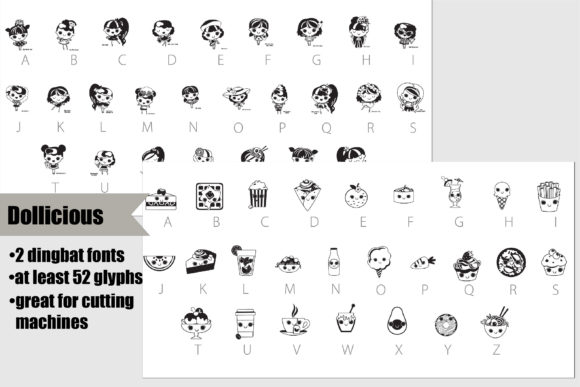
In a world of monotonous fonts, where letters march in sterile lines, there exists a collection that bursts with vibrance and charm - the Dollicious Font Family. This exquisite dingbats bundle, crafted by the ingenious minds at Illustration Ink, is not just a collection of fonts; it's a gateway to a world of culinary delight, a celebration of Asian cuisine in all its delectable glory.
Picture this: A font where adorable dolls, with their rosy cheeks and sparkling eyes, carry their favorite Asian delicacies, from steaming bowls of ramen to delicate sushi rolls. Imagine another font where the very essence of these culinary delights dances across the page, each glyph a tantalizing morsel, ready to be savored. This is the magic of the Dollicious Font Family.
These fonts aren't mere tools for communication; they're an expression of joy, a celebration of culture, and an invitation to indulge in the vibrant world of Asian cuisine. Whether you're a seasoned designer seeking to add a touch of whimsy to your projects or a casual user looking to infuse your digital creations with personality, the Dollicious Font Family is your culinary companion, ready to add a dash of flavor to your every endeavor.
With multiple glyphs in each font, the creative possibilities are endless. Unleash your imagination and let the Dollicious fonts guide you through a culinary adventure. Create eye-catching social media posts that tantalize taste buds, design menus that transport diners to the heart of Asia, or craft invitations that promise a feast for the eyes and the palate.
But the Dollicious Font Family isn't just about aesthetics; it's also a practical choice for crafters and makers. Its perfect compatibility with vinyl and cutting machines makes it a breeze to bring your designs to life. Create personalized decals, T-shirts, tote bags, and more, adding a touch of Dollicious charm to your everyday objects.
So, dear adventurers of design, foodies of the font world, and culinary enthusiasts, we invite you to embark on a gastronomic journey with the Dollicious Font Family. Let your creativity simmer, let your imagination sizzle, and let the flavors of these fonts dance across your screens. Bon appétit!